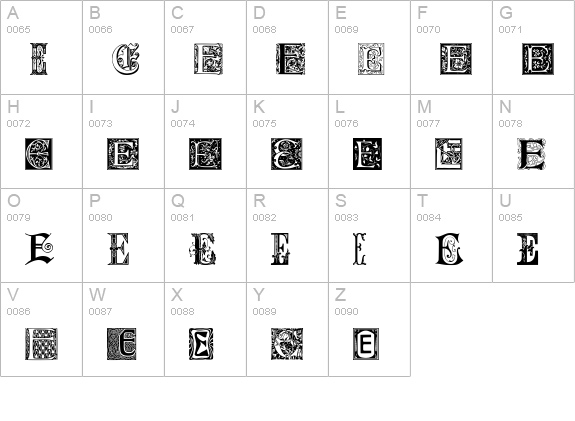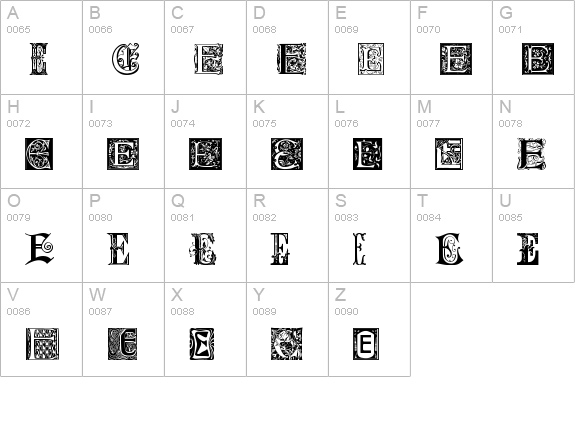
Ornamental Initials E Font Details
Introducing Ornamental Initials E font, a stunning display typeface that exudes elegance and sophistication. With its intricate details and elaborate design, this font is perfect for adding a touch of luxury to your projects. The ornamental initials in this font are beautifully crafted, making them ideal for use in invitations, branding, and other creative designs. What sets Ornamental Initials E font apart is its versatility - it can be used as a standalone decorative element or combined with other fonts to create unique typographic compositions. Whether you're designing a wedding invitation, a book cover, or a branding project, this font will surely elevate your design to the next level. And the best part? Ornamental Initials E font is completely free to download at FontsMarket.com! So go ahead and add this exquisite font to your collection today and start creating stunning designs that will leave a lasting impression.